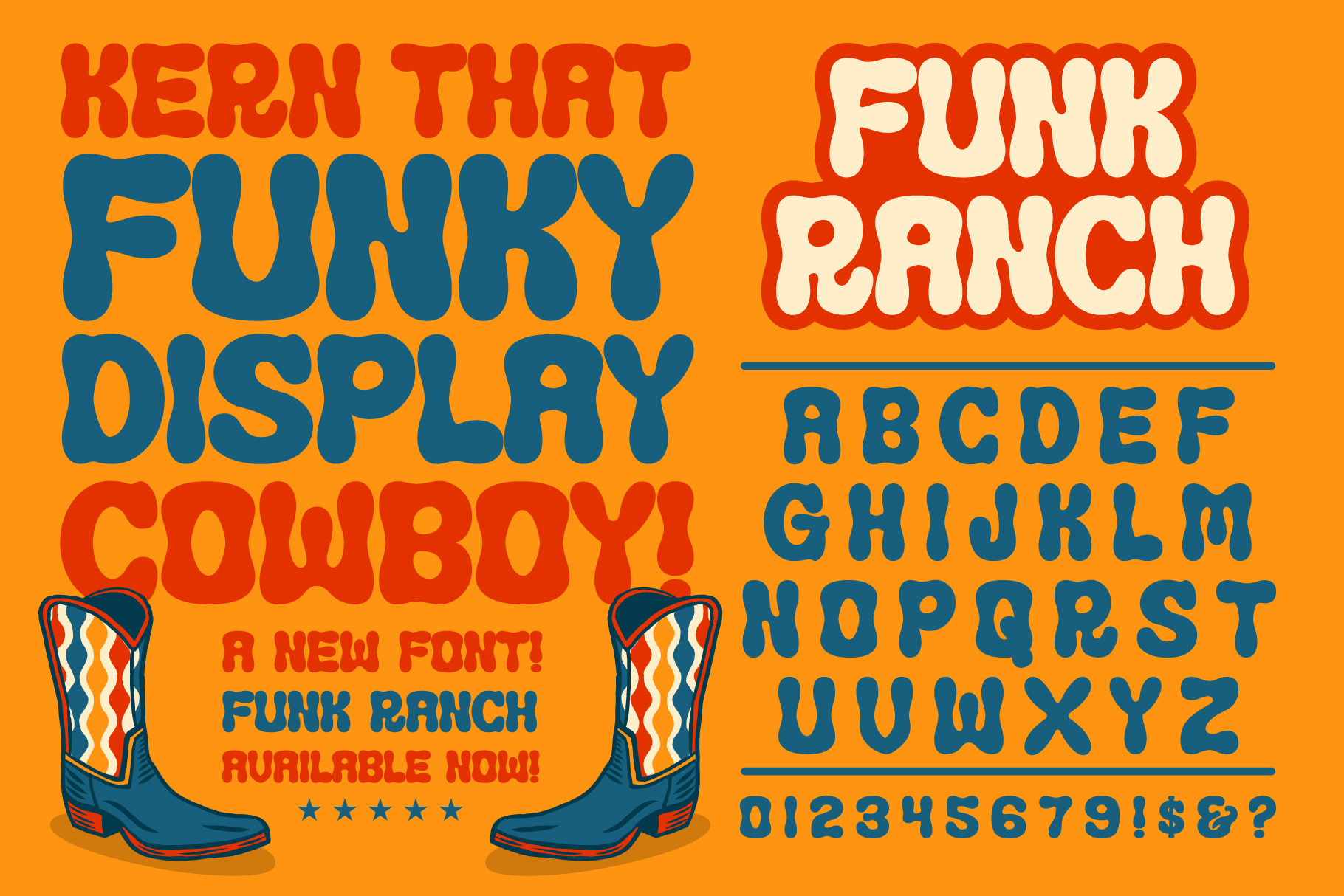
Funk Ranch Display Font
A funky display font with a western kick! Kern that funky display cowboy! Giddie up and start designing. Includes numbers and punctuation.